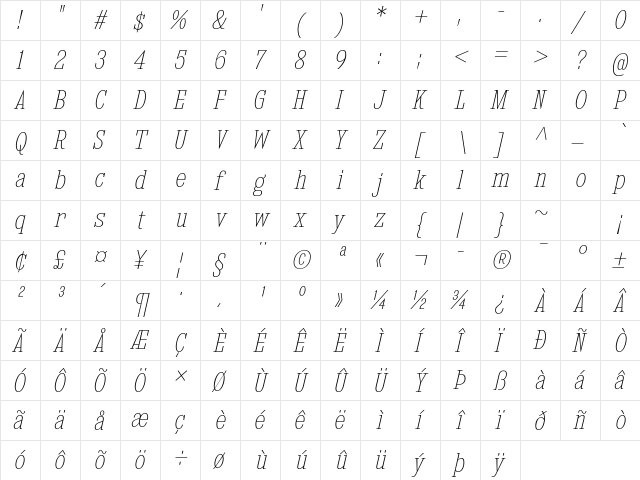
Kingsbridge Condensed UltraLight Italic Font Preview
Design Context for Kingsbridge Typeface
Kingsbridge offers clean, dependable letterforms without strong stylistic allegiance, making it a practical choice for designers who need flexibility. Its italic angle brings a sense of urgency and motion to the letterforms. The delicate stroke weight brings airiness and refinement to layouts. Its narrow stance lets it pack a punch even in space-constrained designs.
Pro Tip: Try Kingsbridge for annotation and caption copy alongside an upright companion — the contrast in angle creates a dynamic but ordered typographic system.